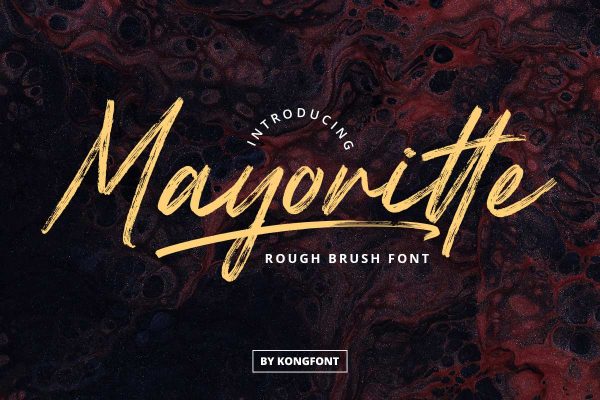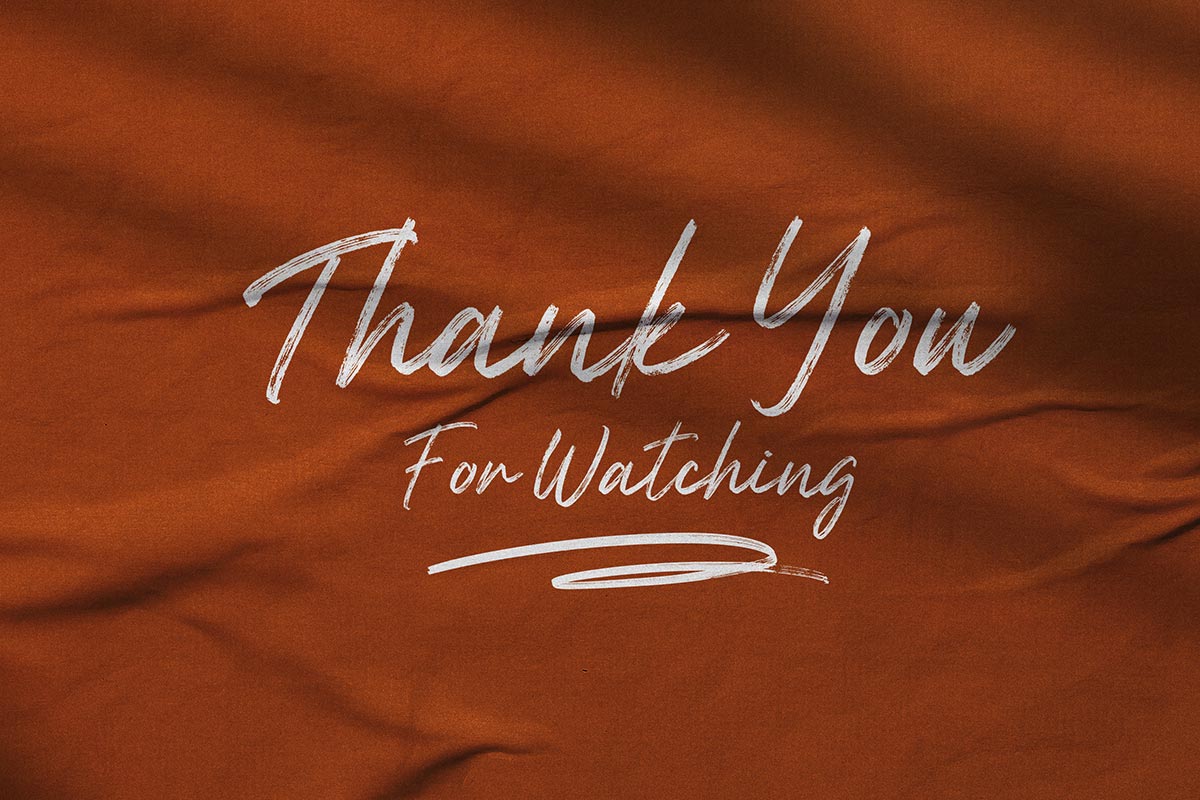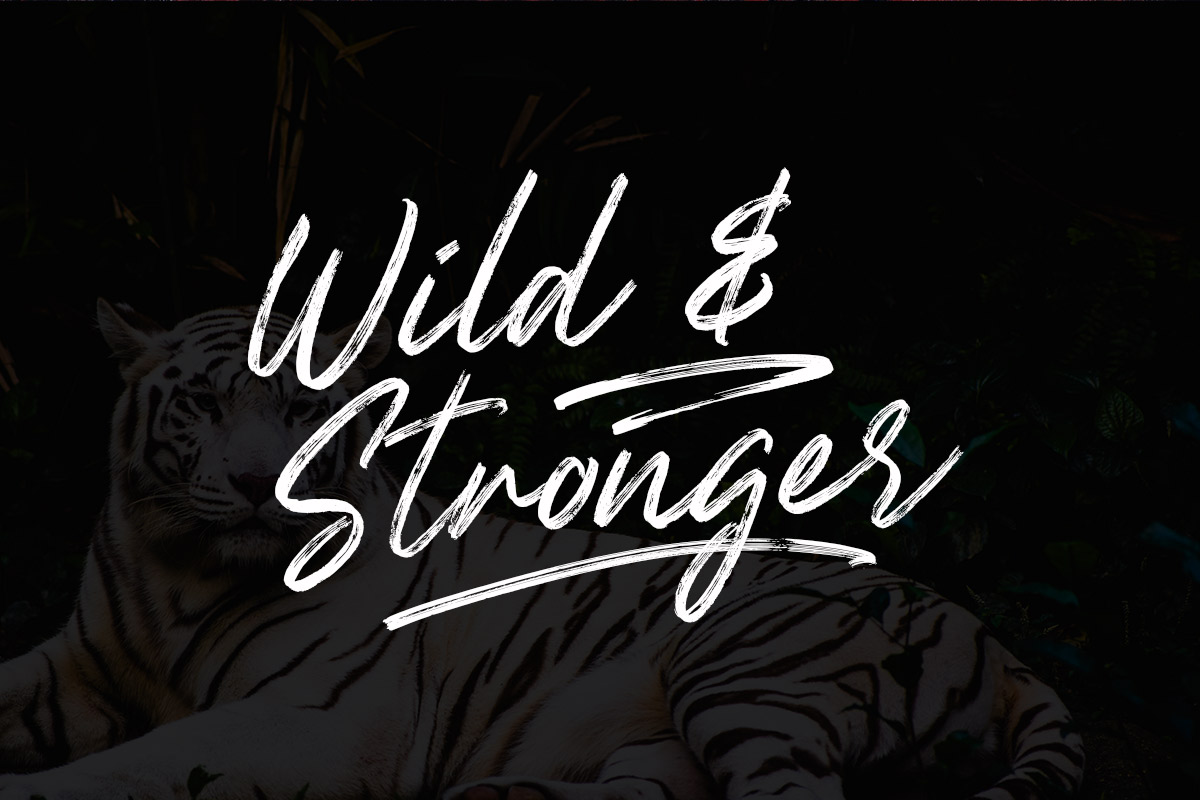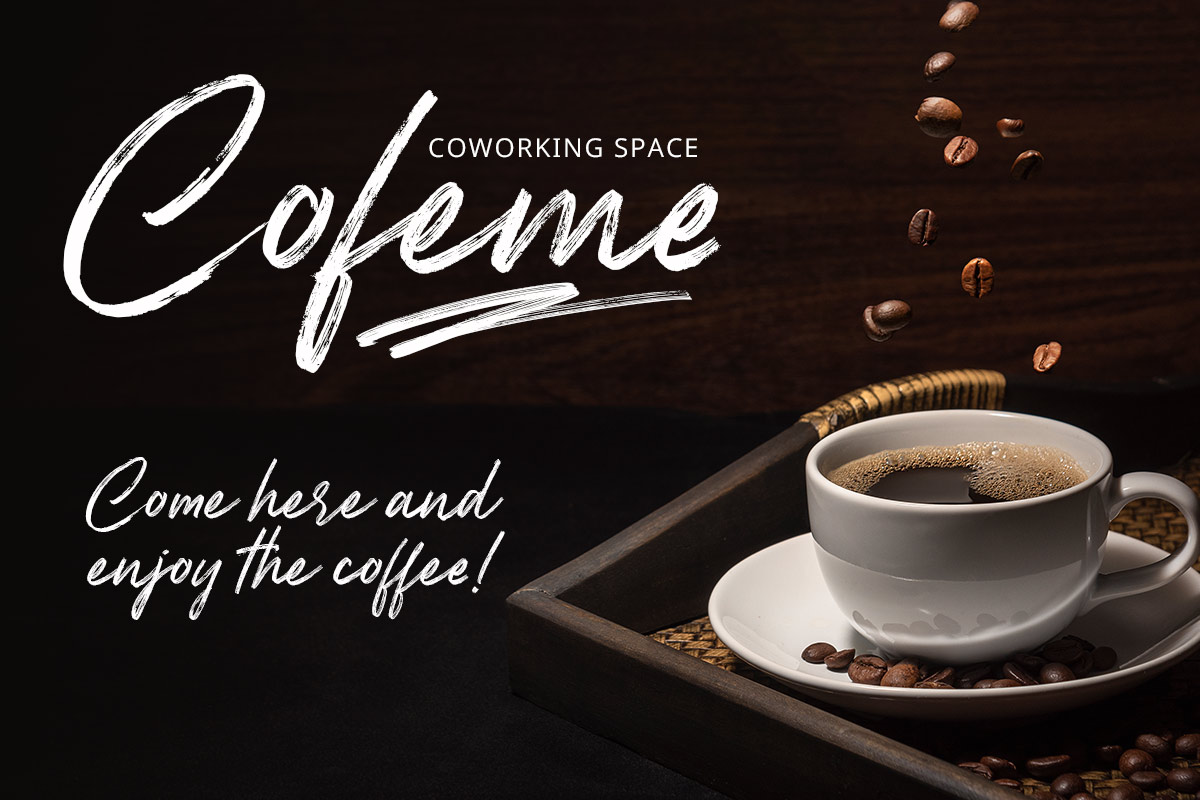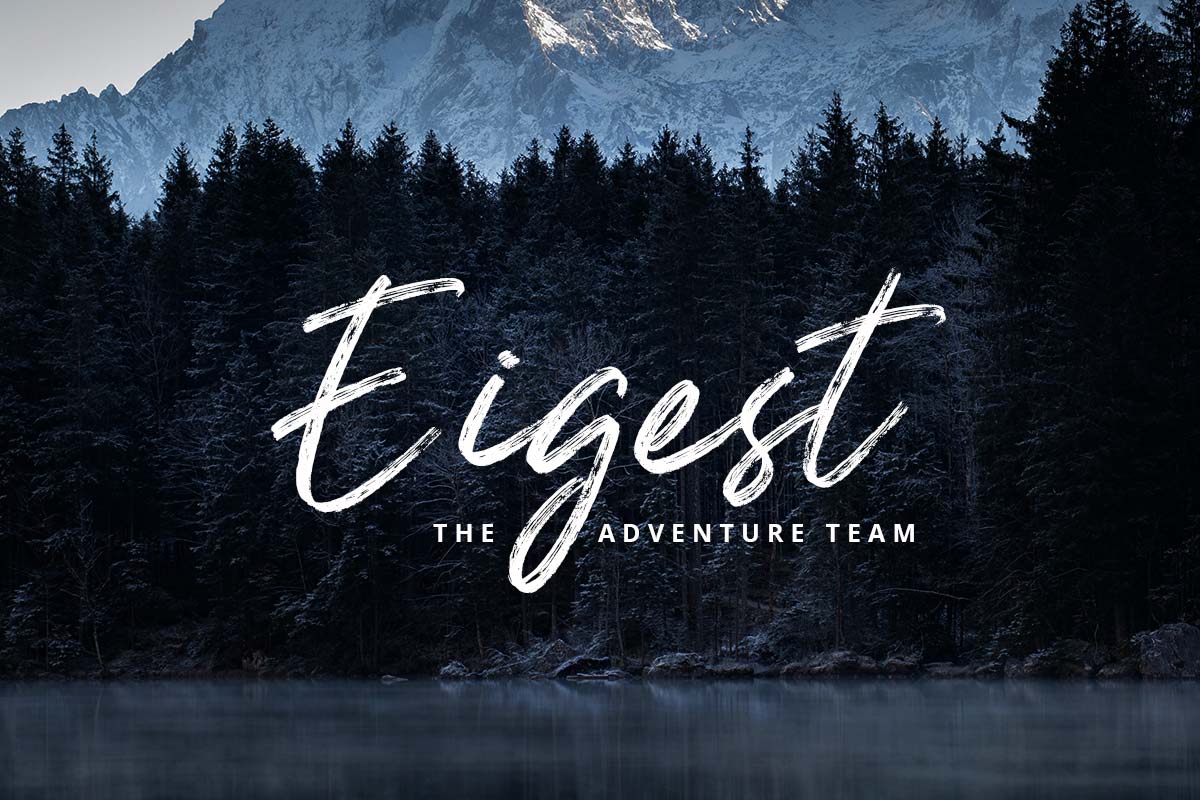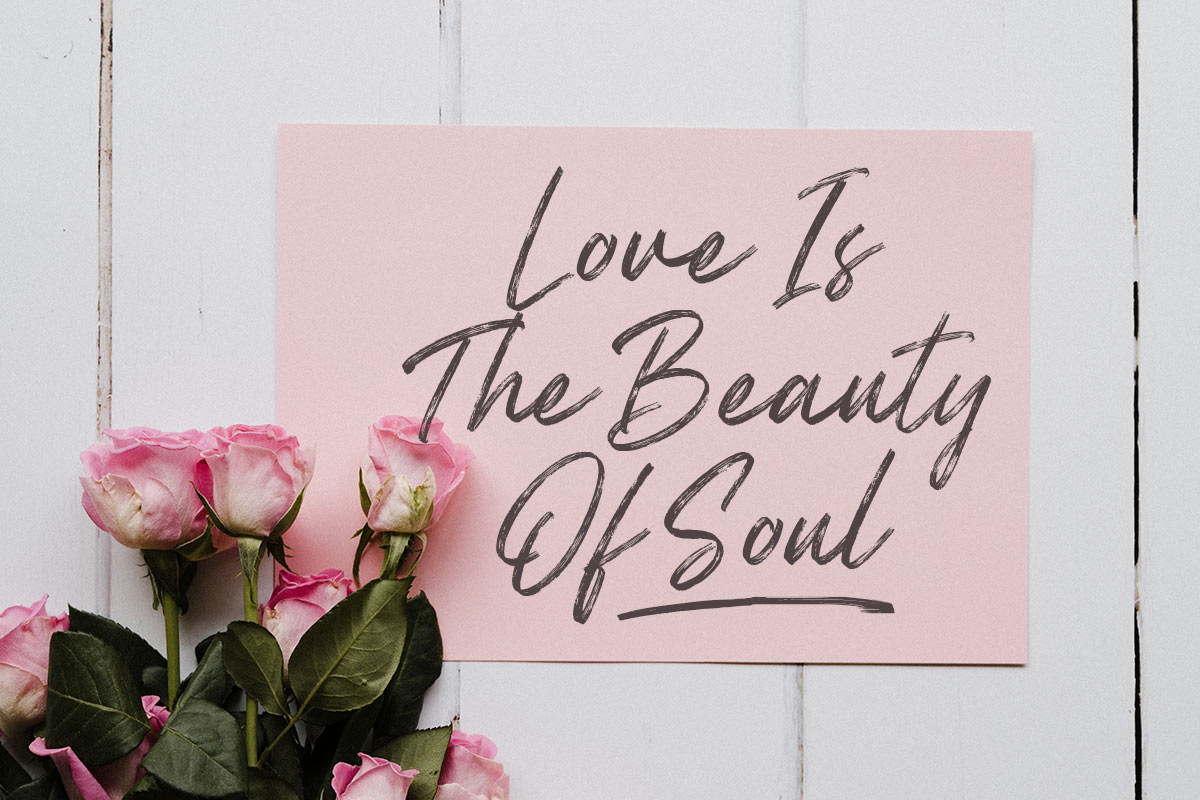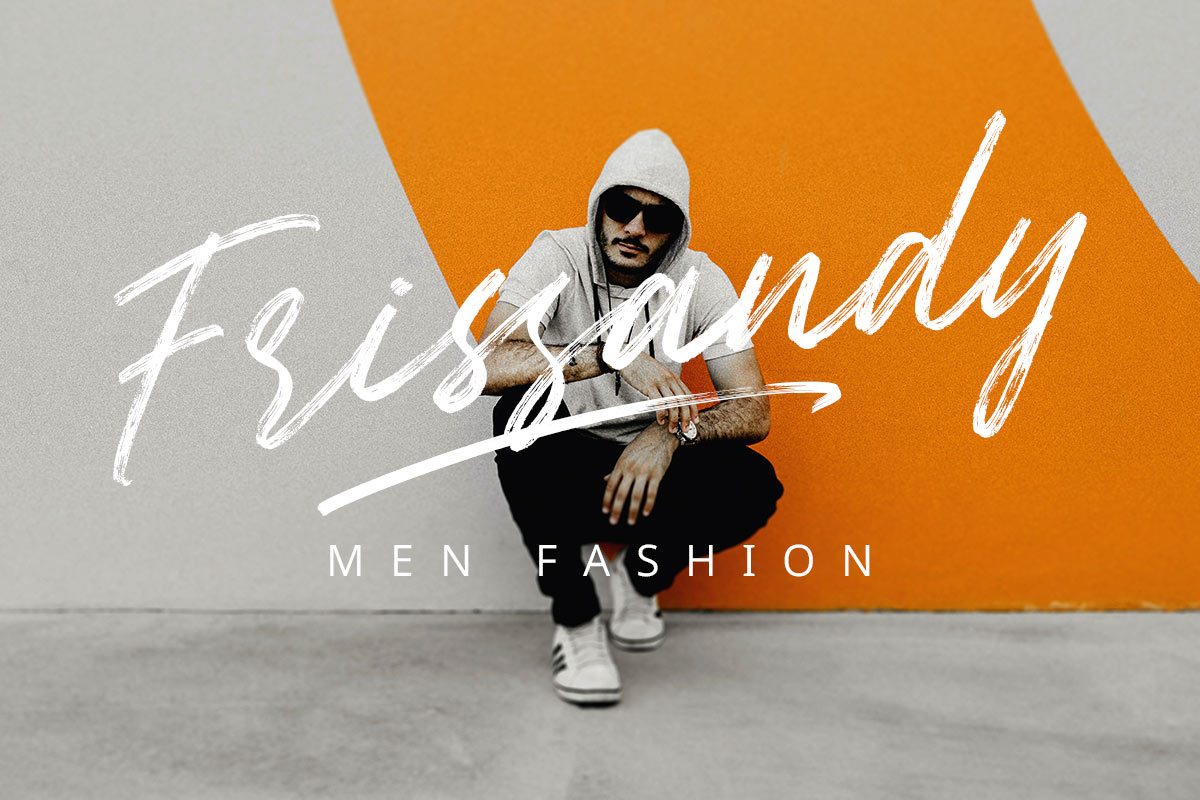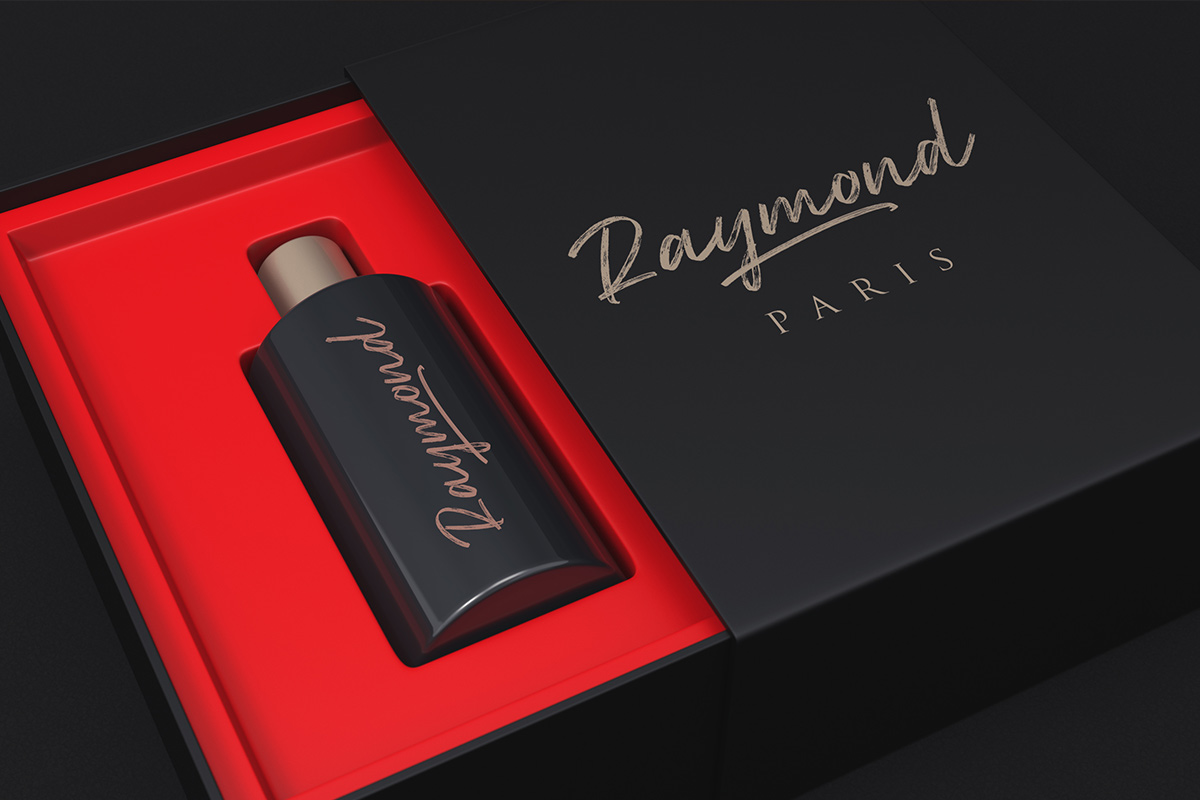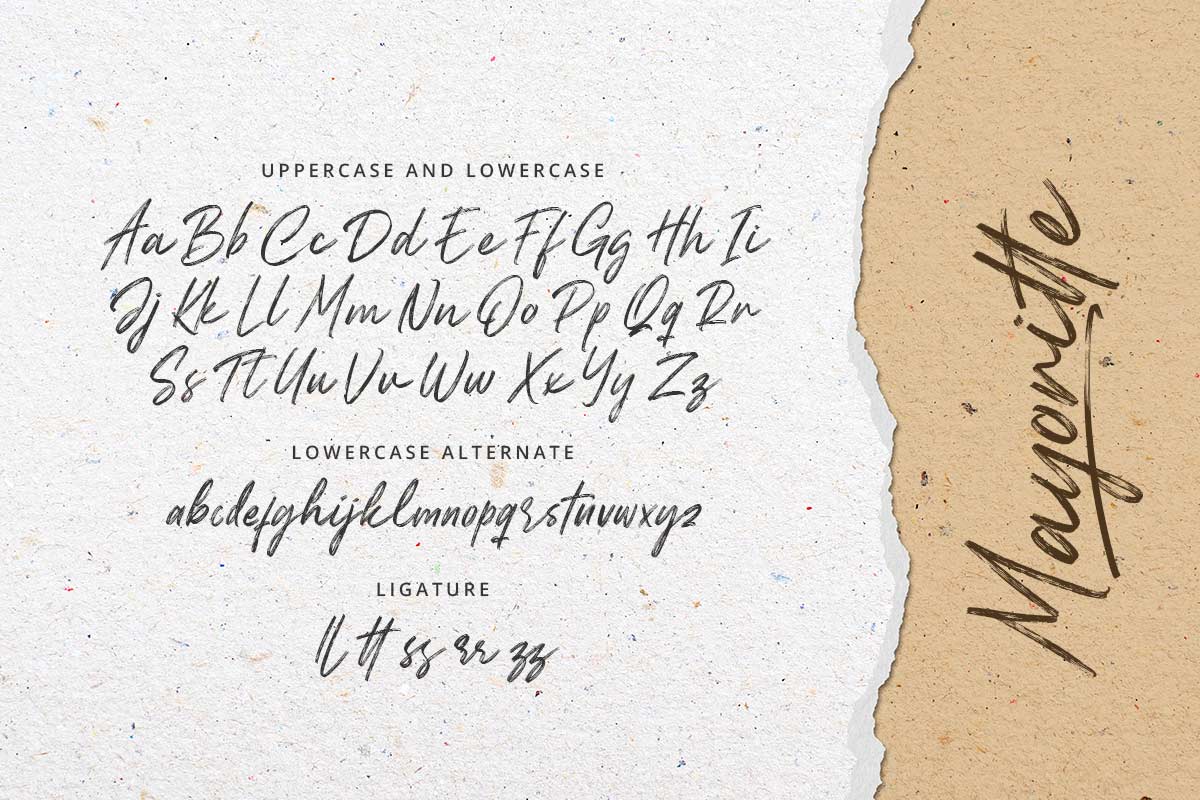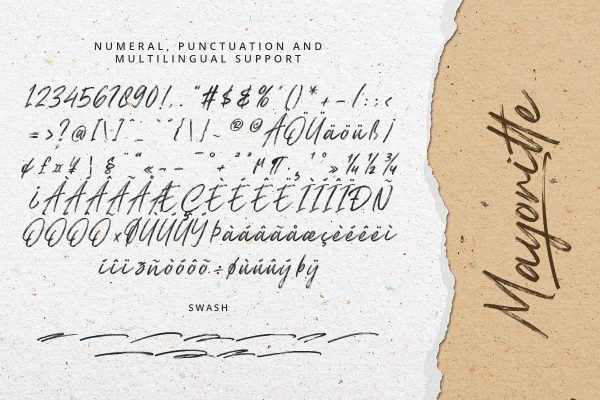
Mayoritte Brush Font Take a look at how classy and unique Mayoritte Rough Brush Font is. This font was created for use as a digital or print font. Mayoritte Rough Brush Font carries the characteristics of a modern and elegant font that can amaze anyone who reads it. Mayoritte Rough Brush Font is one of those aesthetic fonts formed from light brush strokes. This font comes with beautiful curves in some of the letters. On closer inspection, this font looks like a shadow with a bold edge at the end of the font shape. Mayoritte Rough Brush Font has characteristics that are suitable for formal events with a beauty theme. This font is the best wedding font that can be used for wedding invitations, souvenirs, and writing on decorations. Mayoritte Rough Brush Font is also one of the most suitable fonts to use for product brands that answer women's needs, such as fashion and beauty products, as well as shop signs. These fonts can be digital fonts or print fonts. Mayoritte Rough Brush Font is an illegible font. Mayoritte Rough Brush Font was created with simplicity, elegance, and a strong aesthetic in everything that goes with it. This impression arises from how beautiful this font looks and its characteristics. Our font brush collection is compatible to use as Figma fonts, Canva fonts, Freepik Fonts, and Adobe Fonts. They also work as Windows Fonts and Apple Fonts. For your social media needs, you can use and install fonts in our brush typography collection to use as Instagram Fonts, Facebook Fonts, and Twitter Fonts.